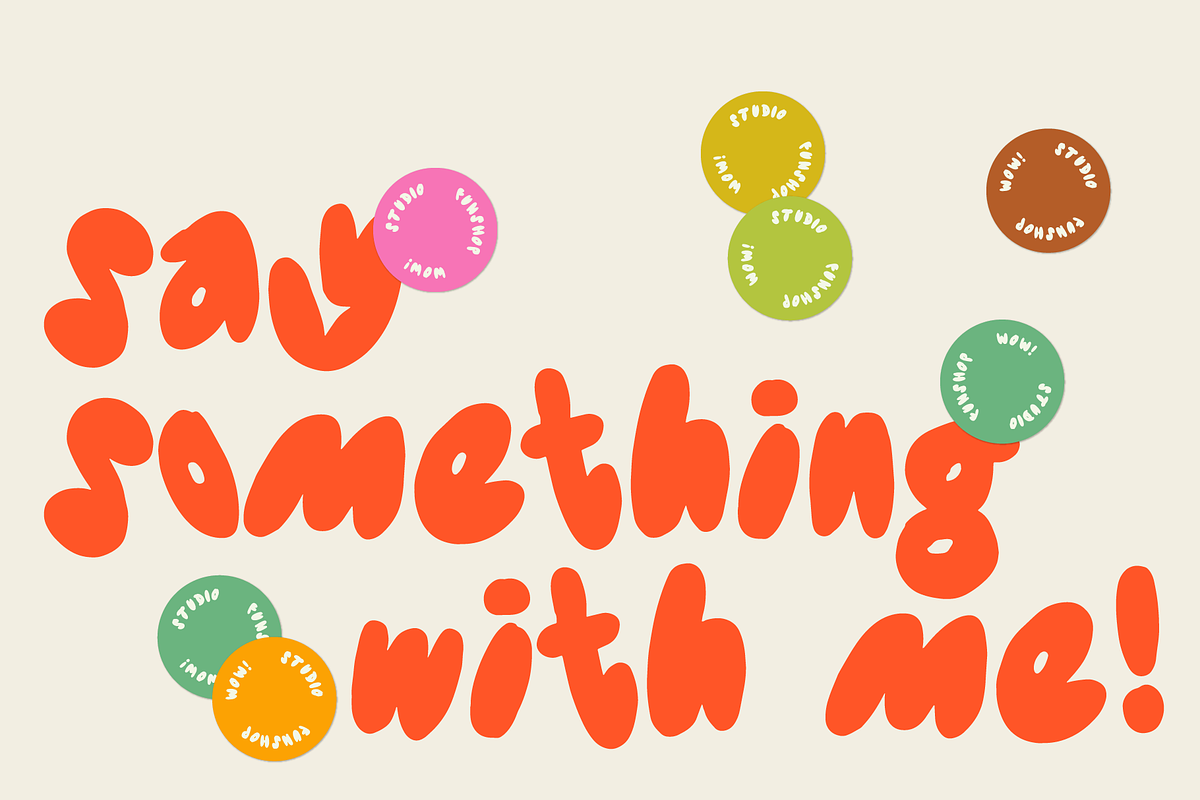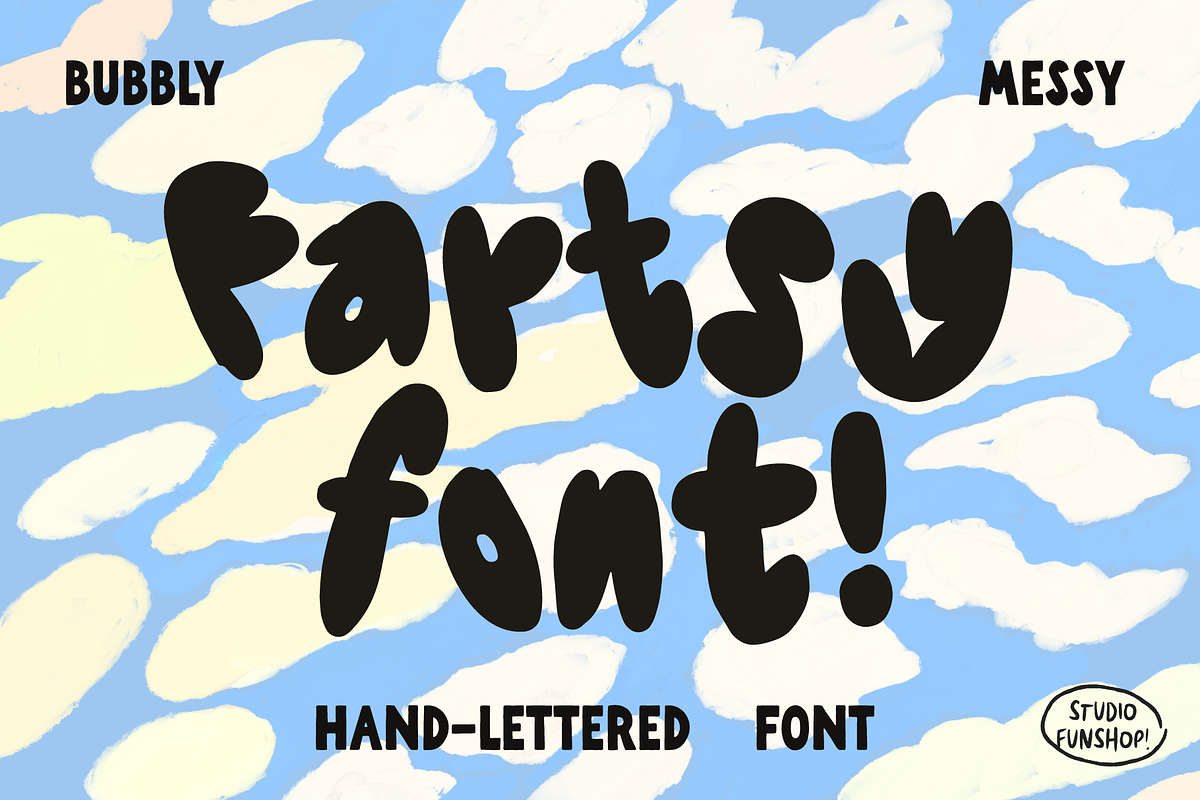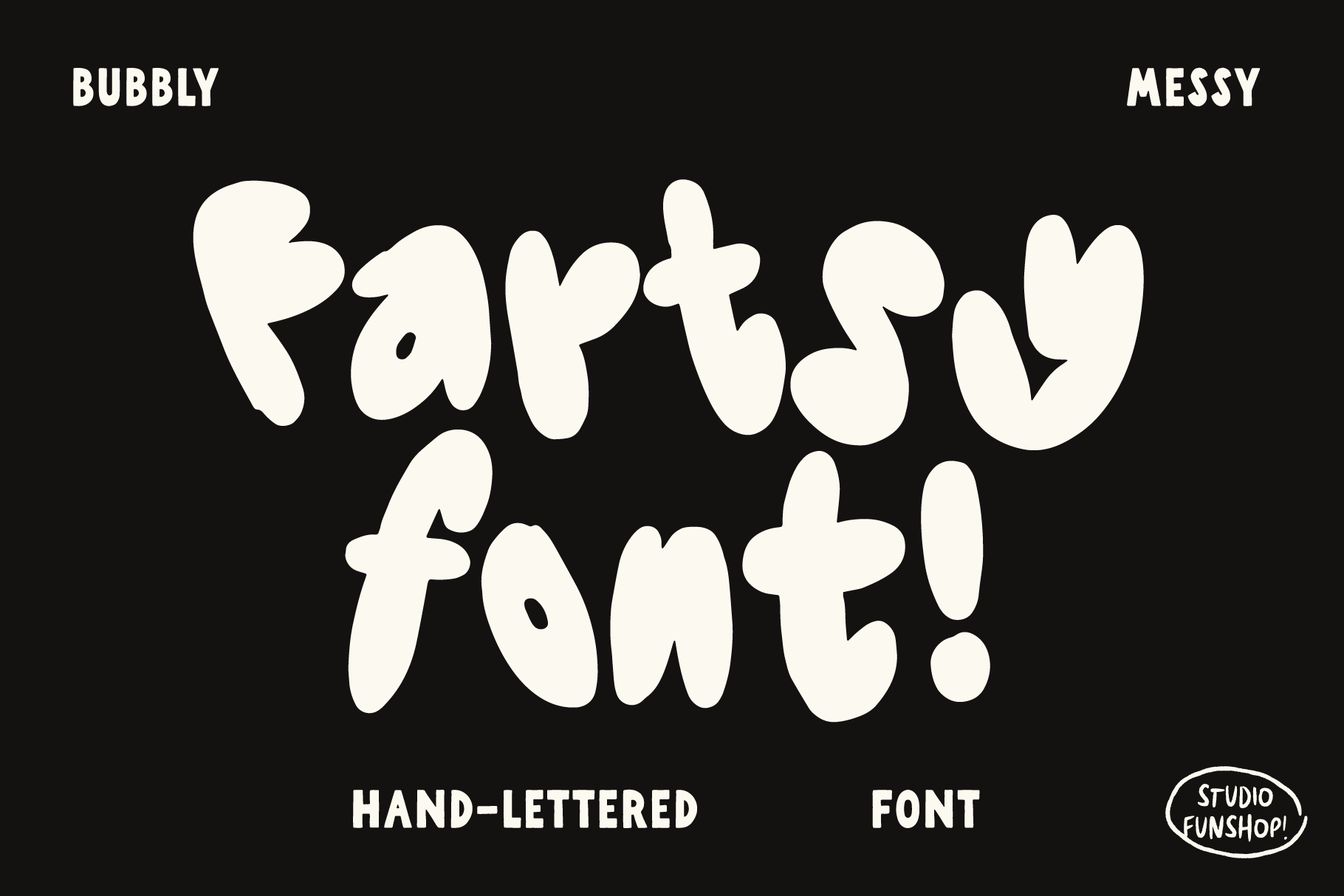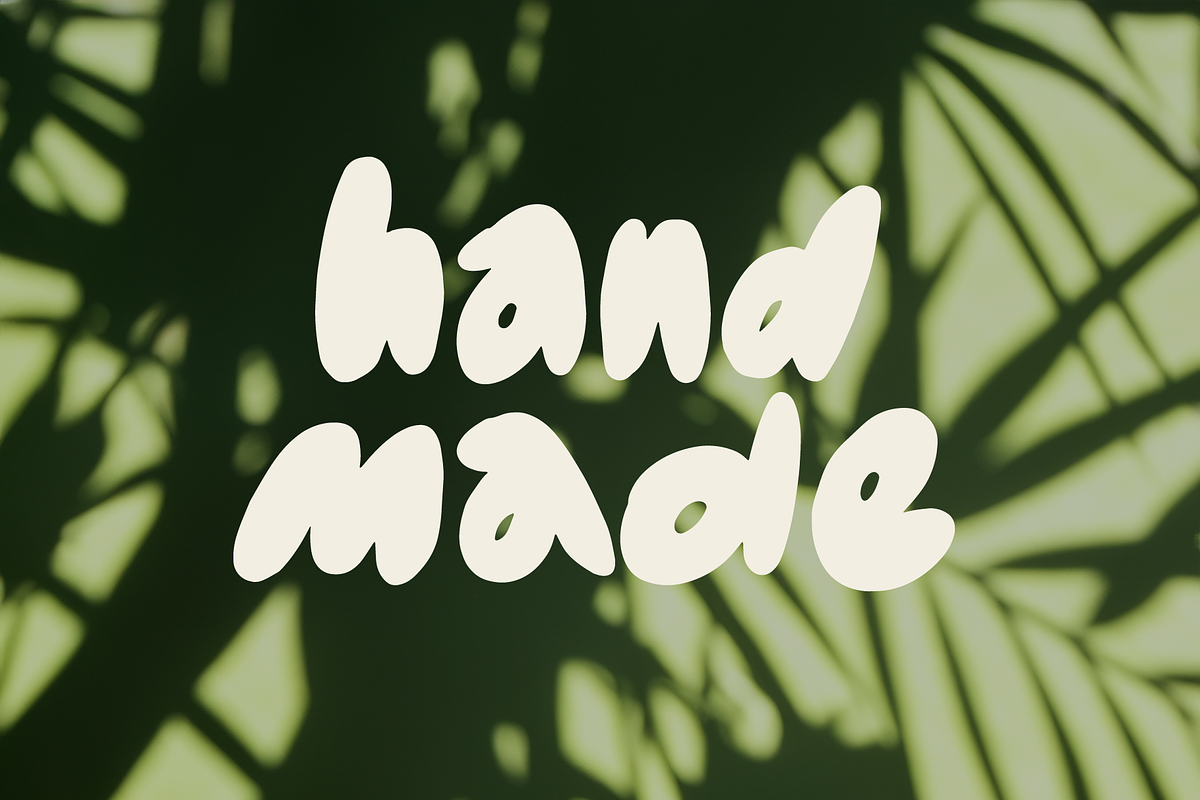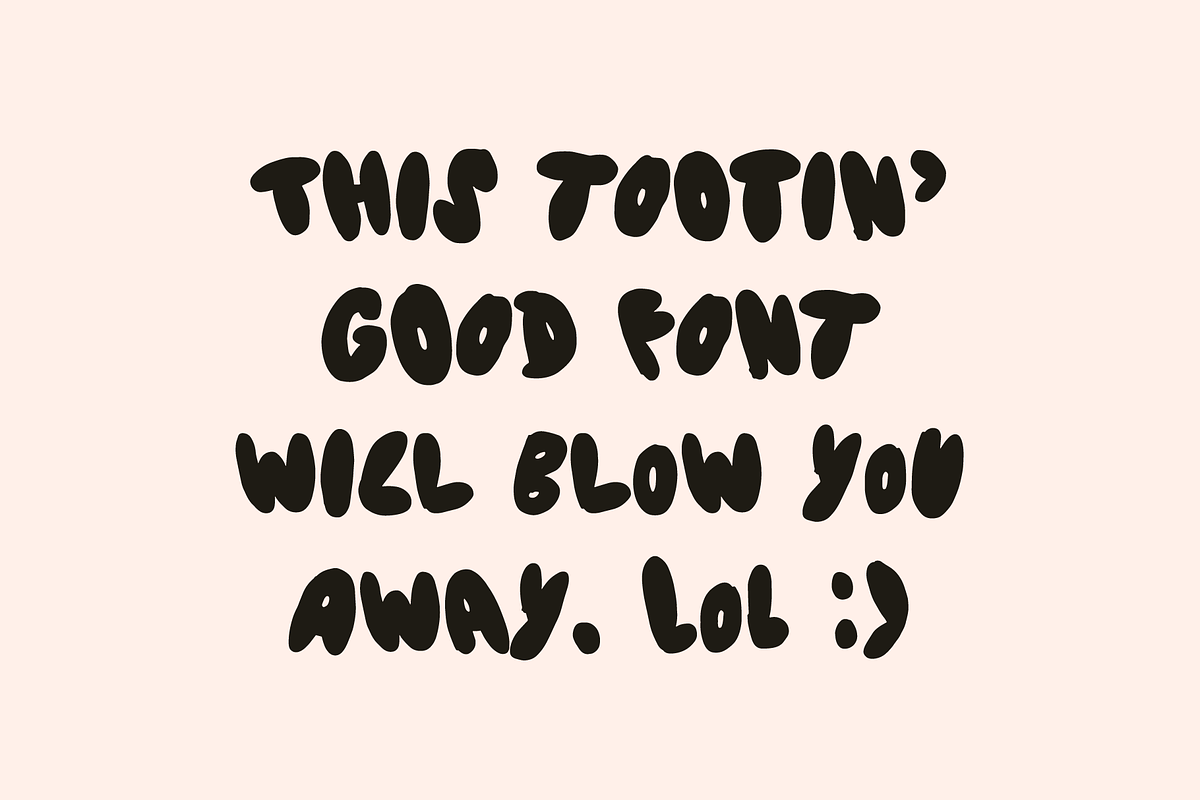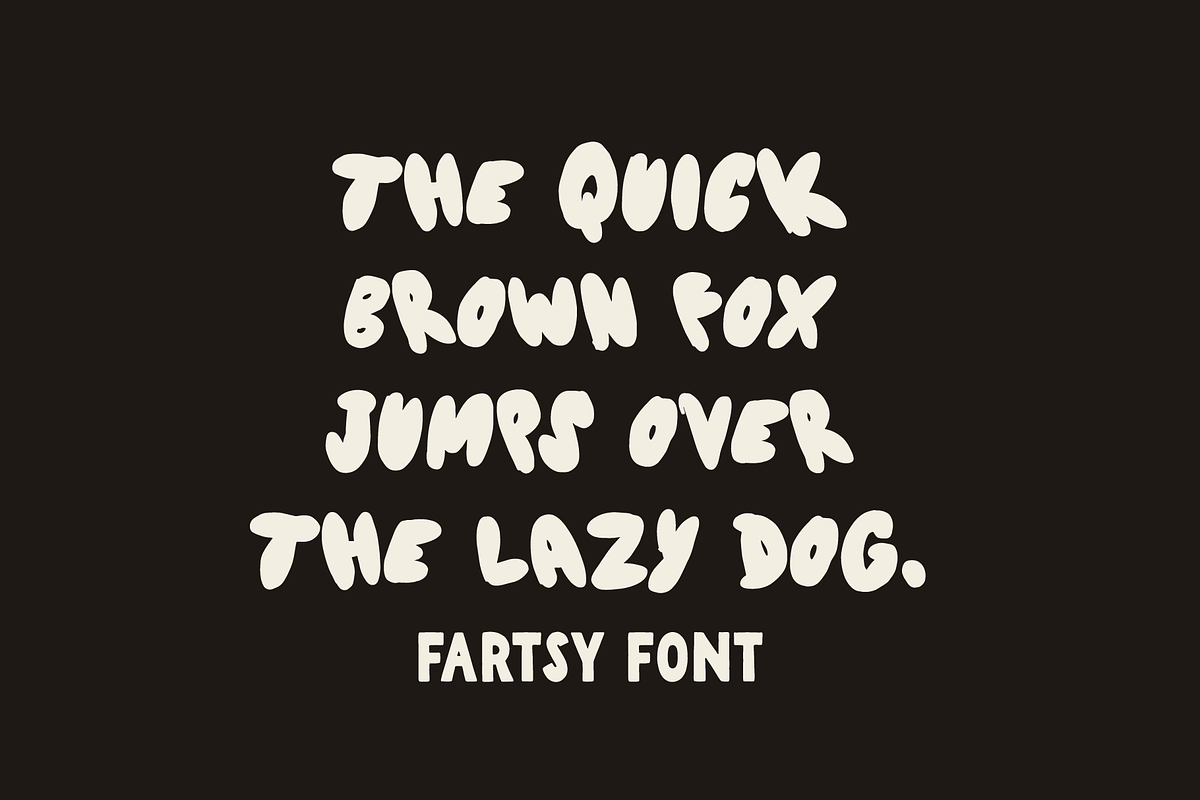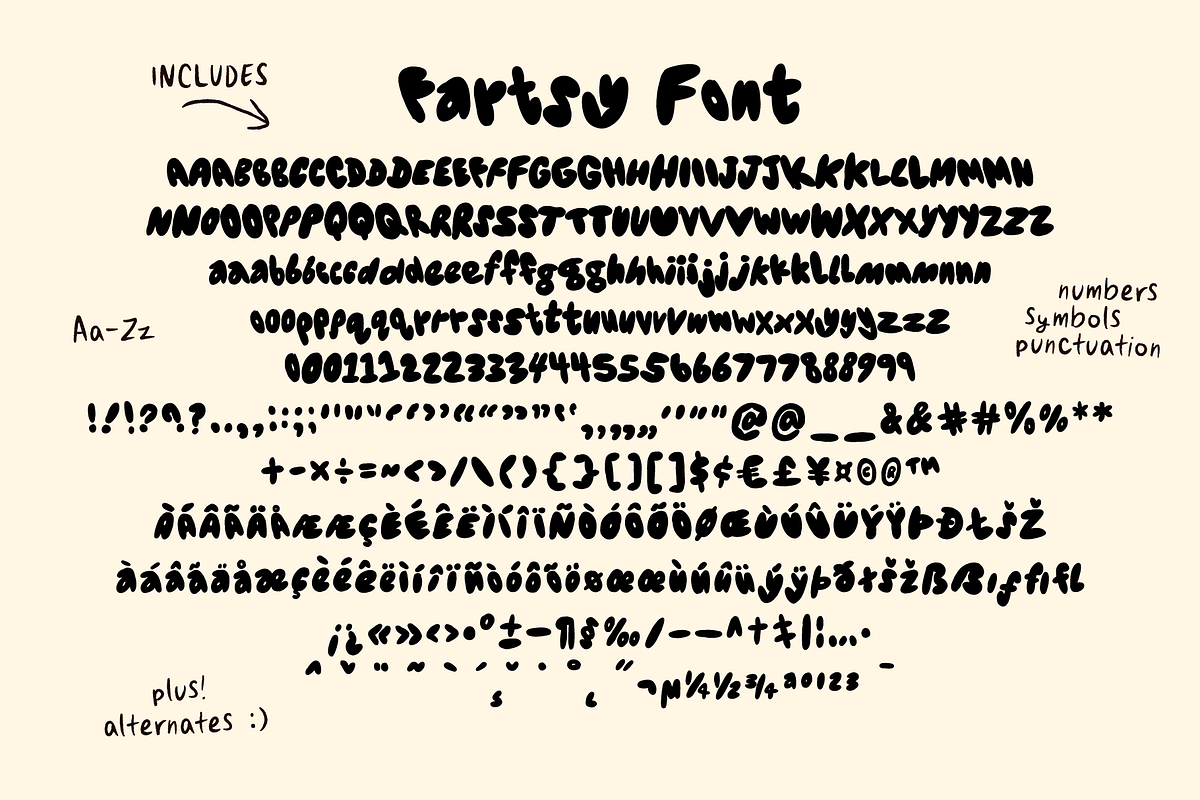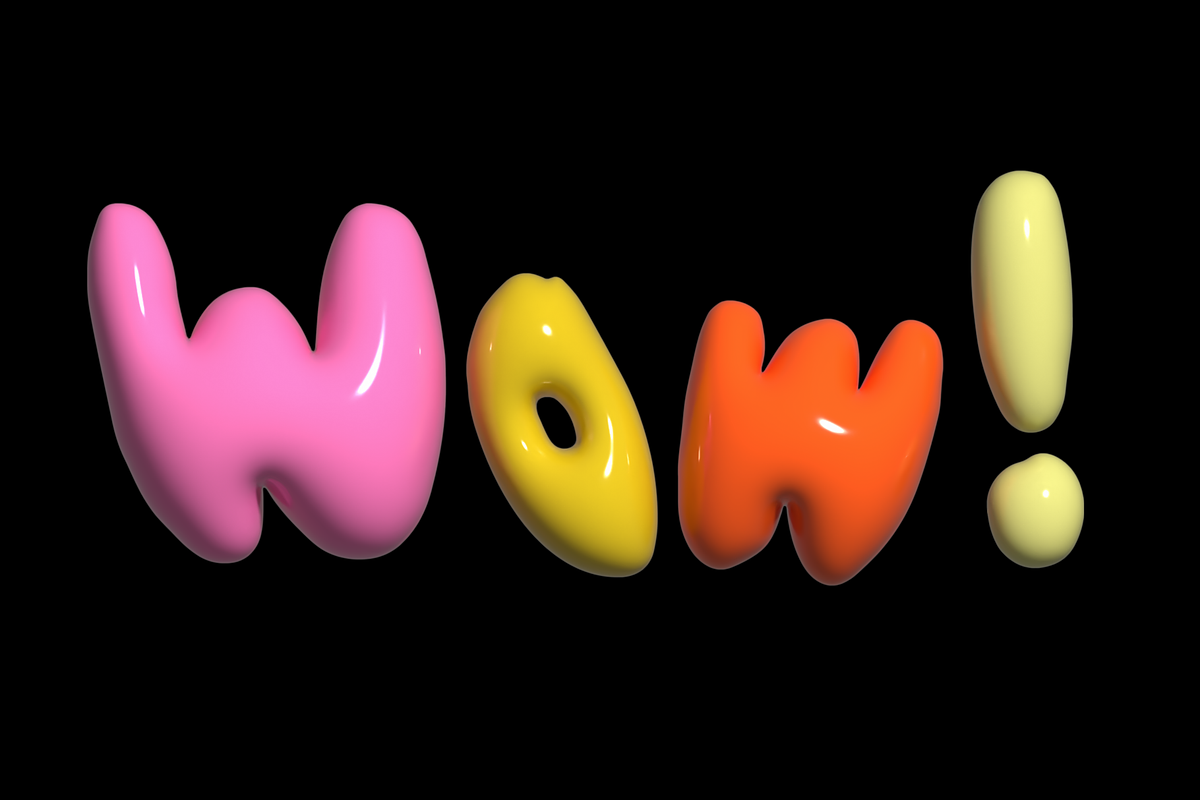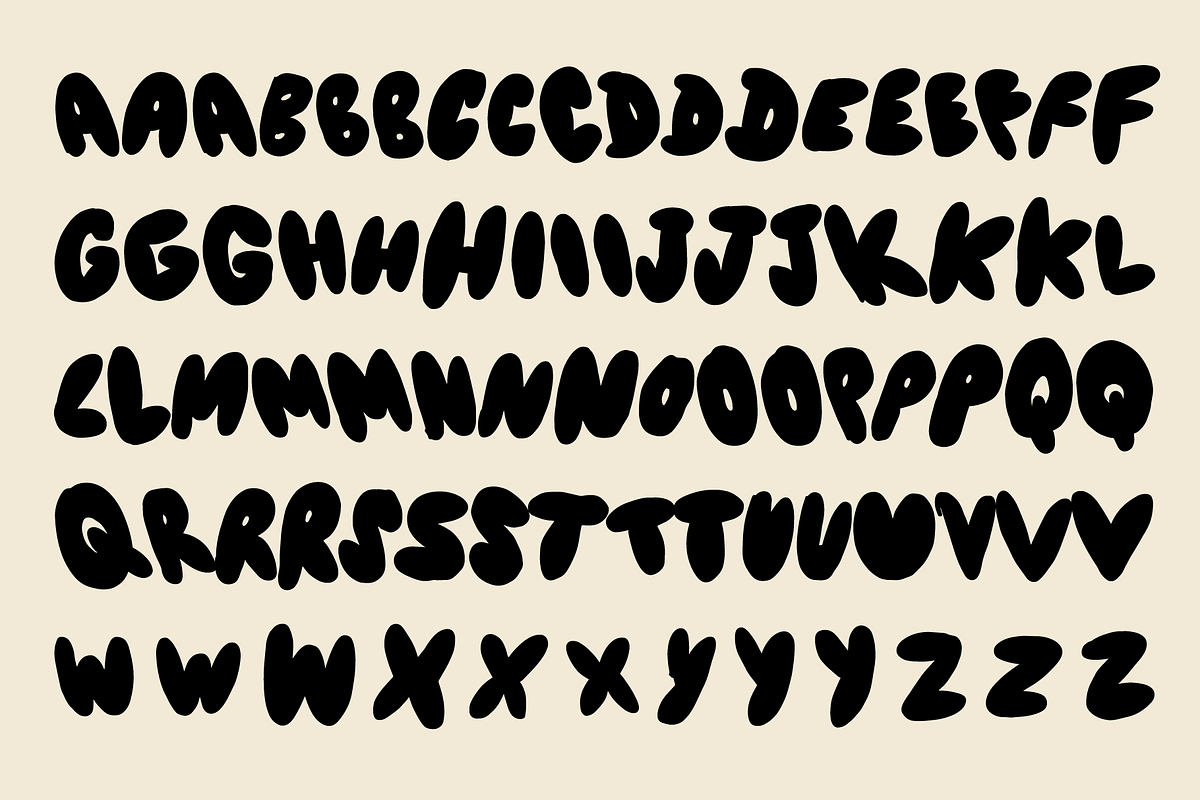
Fartsy- A Bubbly Hand-lettered Font
Fartsy Font This tootin’ good font will blow you away! Say hello to Fartsy the font! A hand-drawn font that is dynamic, messy, relaxed, and fun. It's a bubble-ish font inspired by fartsy stuff and genuine creativity.
Each letter was hand-drawn by me to create that imperfect hand-made look. Enjoy!
What's in the font? Uppercase and Lowercase Aa-Zz! Numbers! Symbols! Punctuation! Alternates! Some Multi-lingual Glyphs (see slides!)